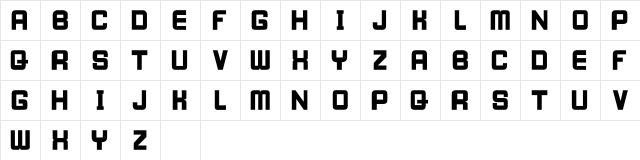
I WILL WAIT Regular
Design Context for I WILL WAIT Typeface
I WILL WAIT takes a measured approach to typography — its balanced proportions and neutral character make it a reliable workhorse for both digital and print work.